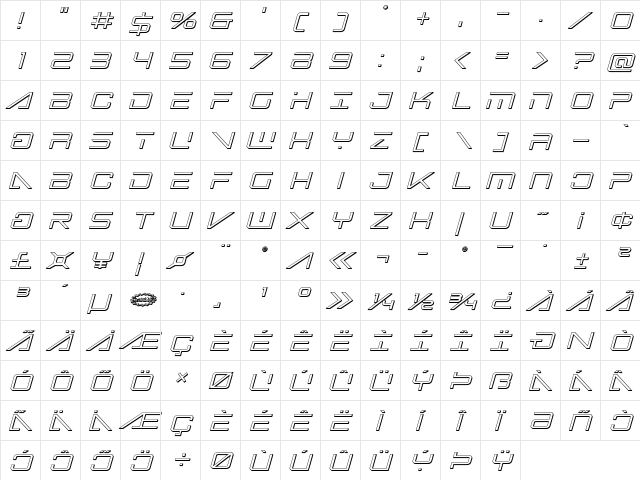
Banshee Pilot 3D Italic Italic
Design Context for Banshee Pilot 3D Italic Typeface
Banshee Pilot 3D Italic takes a measured approach to typography — its balanced proportions and neutral character make it a reliable workhorse for both digital and print work. The dynamic lean of this cut emphasises speed and emphasis in any layout.